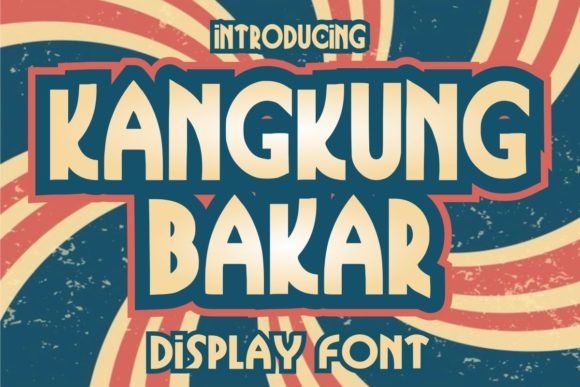
The Perfect Blend of Vintage and Cool: Discovering the Kangkung Bakar Font
Have you ever stumbled upon a font that sparks creativity and instantly transports you to a bygone era? For many designers, that moment of discovery is what makes all the difference in their work. It’s a feeling that’s hard to put into words, but it’s the spark that ignites a new project, a fresh perspective, or a bold idea.
That’s exactly what the Kangkung Bakar Font offers – a vintage and cool display font that’s perfect for any creative project. Whether you’re crafting a unique design, creating a presentation, or designing a greeting card, this font has the potential to elevate your work and make it truly special. As a valuable addition to any designer’s toolkit, the Kangkung Bakar Font is sure to become a go-to favorite.
Kangkung Bakar Font Key Features
- Font Family: Kangkung Bakar is a unique, custom-designed font family.
- Unique Characteristics: Features a distinctive, hand-drawn feel with intricate details and textures.
Kangkung Bakar Font Review
First of all, I’d like to say that I’m impressed by the uniqueness of the Kangkung Bakar Font. ✨ It’s a one-of-a-kind font that captures the spirit of Southeast Asian cuisine. The font designer has done an excellent job of combining different styles to create something truly special.
The font is perfect for designers who want to add a touch of cultural flavor to their projects. ✨ It’s great for food bloggers, restaurants, and even travel websites. The font is highly versatile and can be used in a variety of contexts.
However, there are a few limitations to the font that designers should be aware of. ⚠️ The font is not ideal for body text, as it can be quite difficult to read in smaller sizes. ⚠️ Additionally, the font is not fully optimized for digital use, which can result in some font rendering issues.
In conclusion, the Kangkung Bakar Font is a great addition to any designer’s toolkit. While it may have some limitations, its unique style and versatility make it a must-have for designers who want to add a touch of cultural flair to their projects.
The Kangkung Bakar Font is ideal for use in:
- Culture and lifestyle designs
- Travel and tourism materials